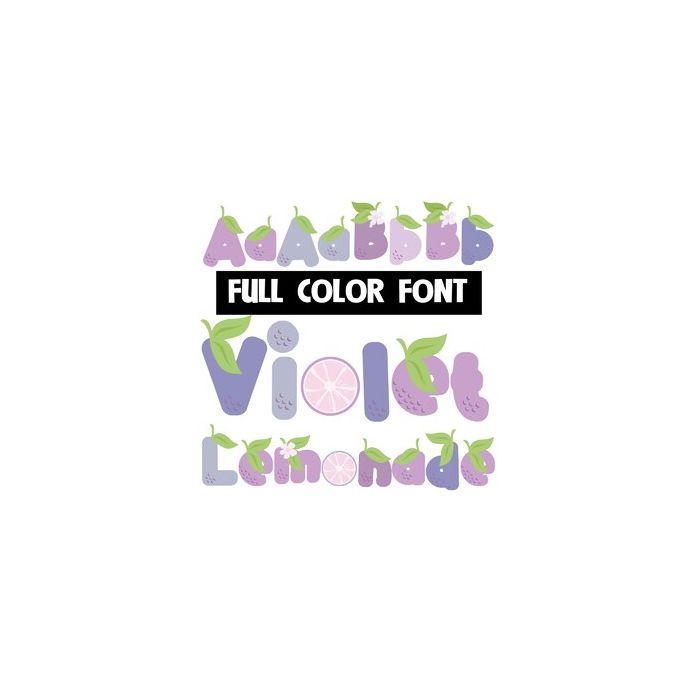
This full-color font features purple citrus fruit. You can access another version of the letters by using the alt characters in Silhouette's glyph map.